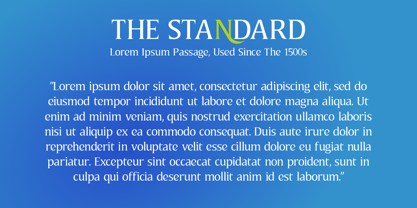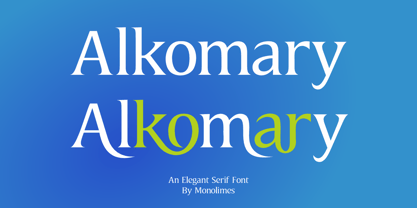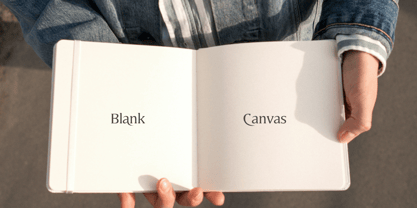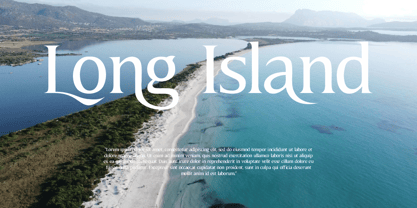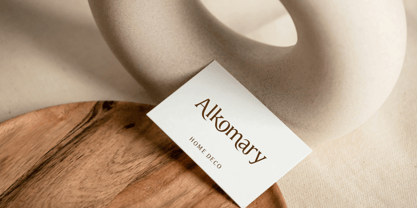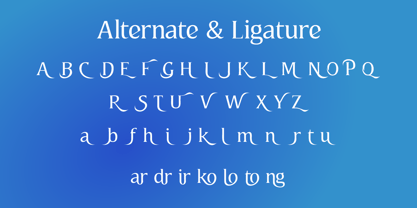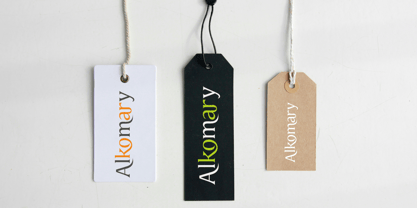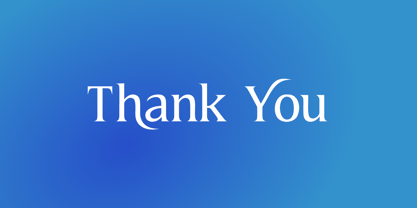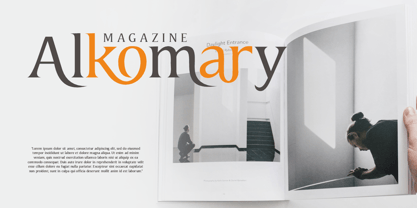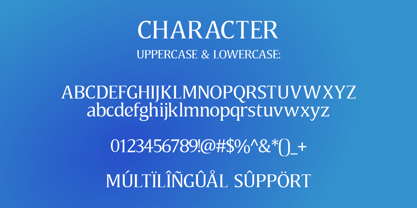
Alkomary
Introducing “Alkomary”, an elegant serif font that blends classic sophistication with modern artistic flair. Designed with graceful curves, refined contrast, and stylish letterforms,
Alkomary is perfect for luxury branding, editorial layouts, wedding invitations, fashion projects, logos, packaging, and premium typography designs.
Its timeless aesthetic creates a beautiful balance between readability and decorative elegance, making every word feel refined and memorable.